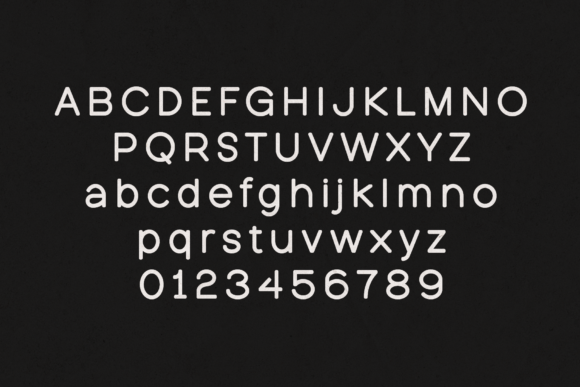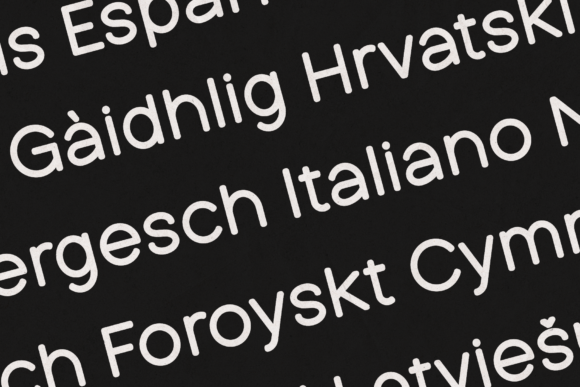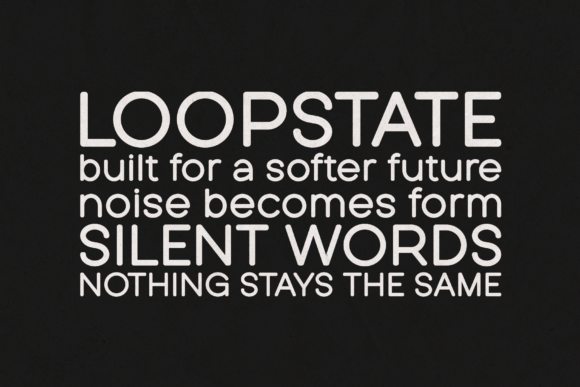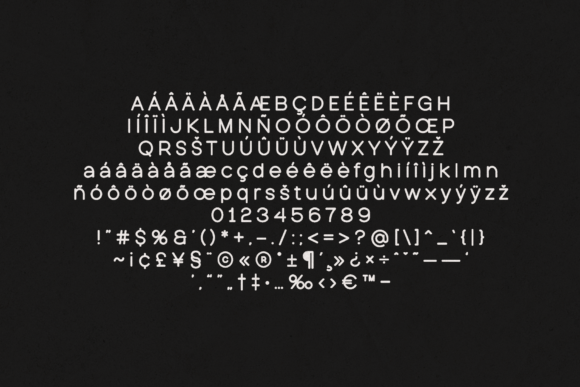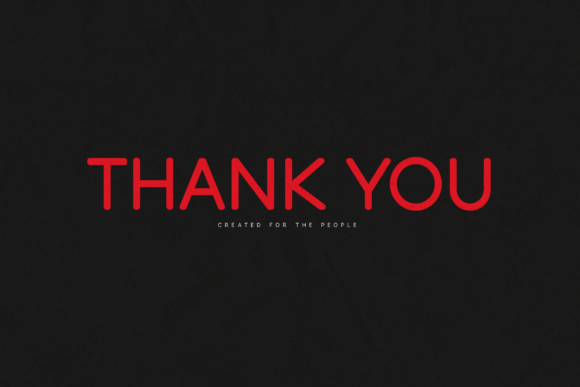
Introduction to Quasar Soft Font
Quasar Soft is a modern rounded sans serif typeface designed with smooth curves, balanced geometry, and a clean contemporary aesthetic.
The design blends modern minimalism with soft edges, making Quasar Soft highly versatile across branding, editorial layouts, packaging, and digital design Quasar Soft is ideal for designers who want a modern sans serif with personalityโ€”clean enough for professional branding, yet soft enough for creative and lifestyle projects.
Key Features of Quasar Soft Font